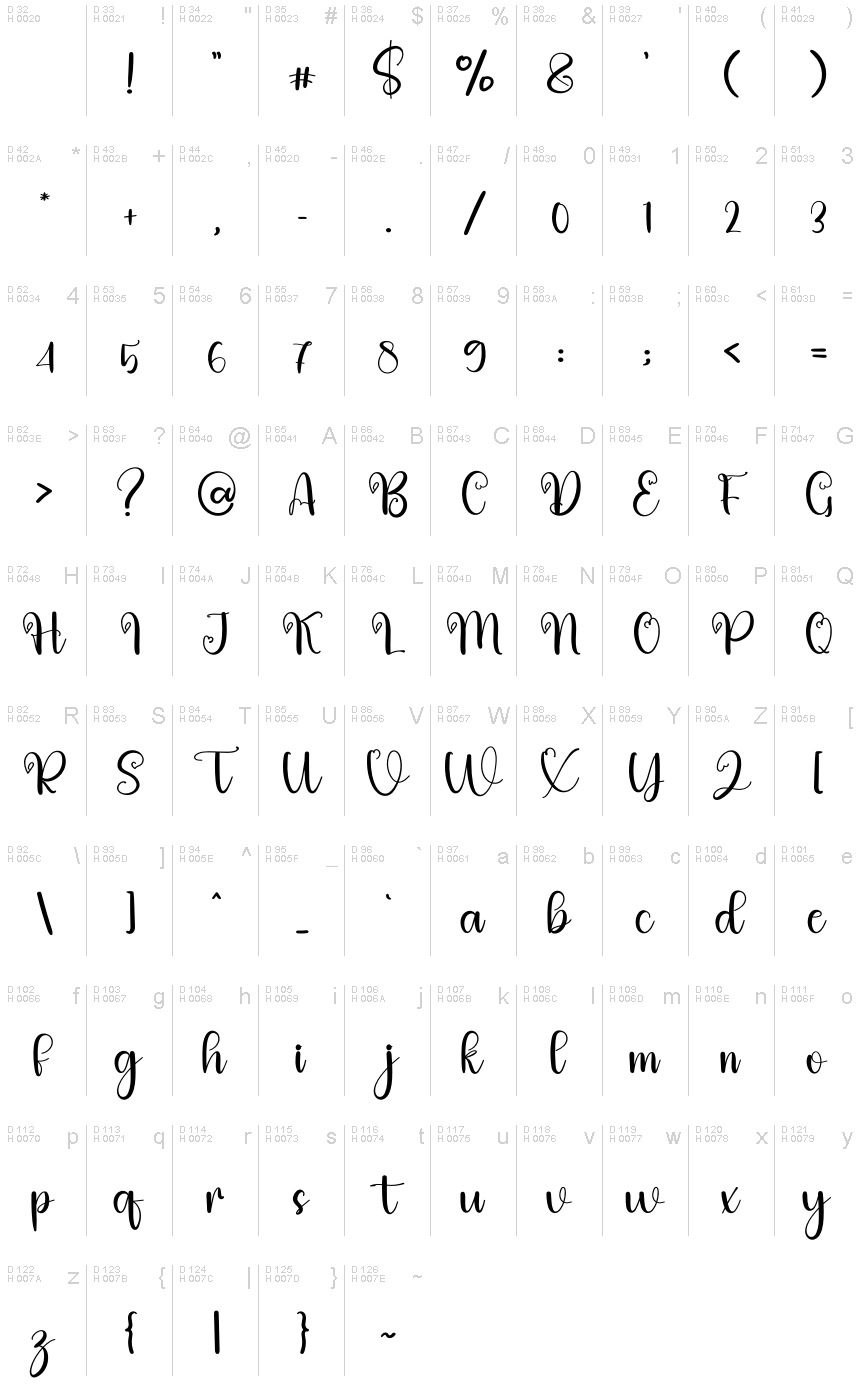
Cake
Cake, designed by FreshtypeINK, is a delightful calligraphy font that exudes charm and elegance. Its flowing, handwritten quality evokes the artistry of traditional calligraphy but with a modern twist. The letters dance with a casual grace, making it feel personal and inviting. The strokes vary subtly in thickness, giving each character a dynamic presence that seems to leap off the page.
This font's whimsical nature makes it perfect for personal correspondence, wedding invitations, and branding projects that require a touch of intimacy and flair. Cake's stylish yet readable design ensures it stands out in creative applications, from social media graphics to packaging design where a handcrafted aesthetic is desired.